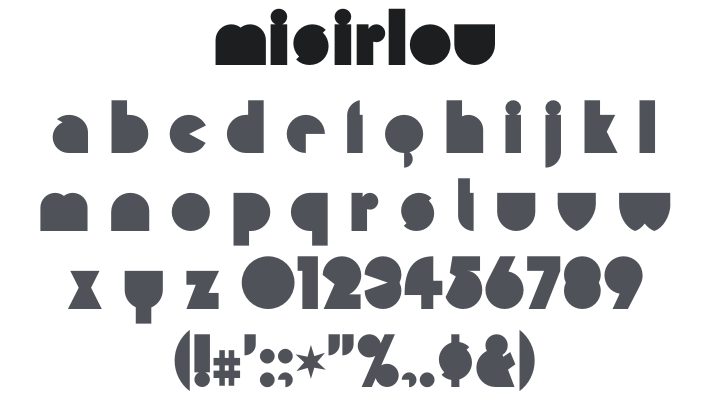
Misirlou Font Family
About Misirlou
Misirlou is a cool, easygoing Art Deco display typeface — a digital revival of Mike Daines' Sunshine & Moonshine from 1971 Letraset. Its relaxed, groovy letterforms carry a laid-back 1970s sophistication that feels sun-drenched and effortlessly stylish. Available in regular and Day variants. Perfect for surf culture branding, retro cocktail menus, music posters, vintage-inspired packaging, and any design needing unhurried, golden-era cool.